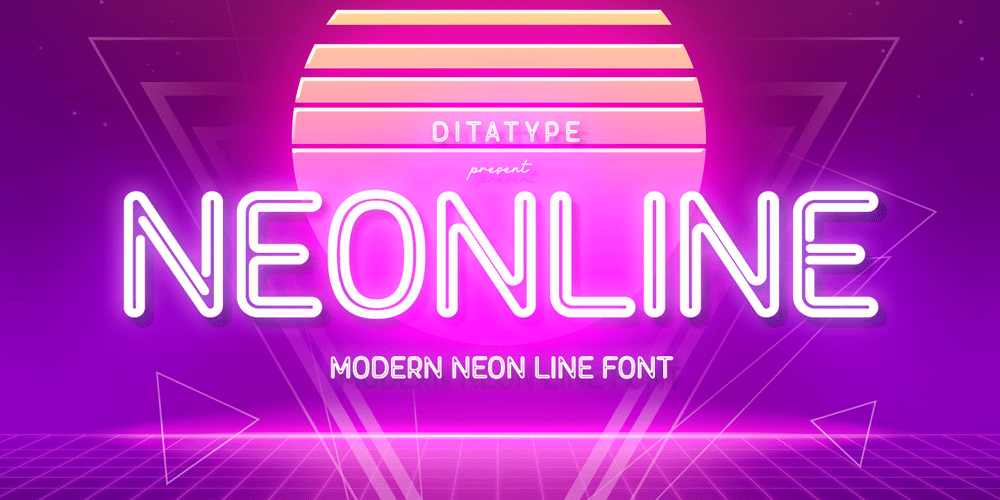
Neonline Font Family was designed by Donis Miftahudin and published by Ditatype. Neonline contains 1 styles and family package options. Neonline is a captivating display font that combines rounded letterforms with a subtle neon-inspired style. With its elegant uppercase characters and unique design, this typeface adds a touch of sophistication and modernity to your projects. The defining feature of Neonline lies in its rounded shapes, which exude a sense of softness and approachability. Each letter is meticulously crafted with smooth curves, creating a harmonious and pleasing aesthetic. The rounded forms give the font a friendly and inviting appearance, while the subtle neon style adds a hint of excitement and vibrancy. Neonline infuses a sense of allure and intrigue into each character. The font captures the essence of neon signs, casting a subtle glow that evokes a contemporary atmosphere. The neon style adds a touch of modernity and visual interest without overwhelming the design. The uppercase letterforms of Neonline are refined and sophisticated, commanding attention with their rounded shapes. The moderate boldness of the letters strikes a balance between impact and legibility. Enjoy the various features available in this font.Features: Alternates Multilingual Supports PUA Encoded Numerals and Punctuations Neonline perfect for headlines, branding materials, titles, and designs that call for a touch of elegance with a hint of neon inspiration. Whether you’re creating posters, logos, packaging, or anything in between, this font will elevate your projects with its unique charm. It particularly shines in applications related to fashion, beauty, technology, and modern lifestyle themes. Find out more ways to use this font by taking a look at the font preview.Thanks for purchasing our fonts. Hopefully, you have a great time using our font. Feel free to contact us anytime for further information or when you have trouble with the font. Thanks a lot and happy designing.